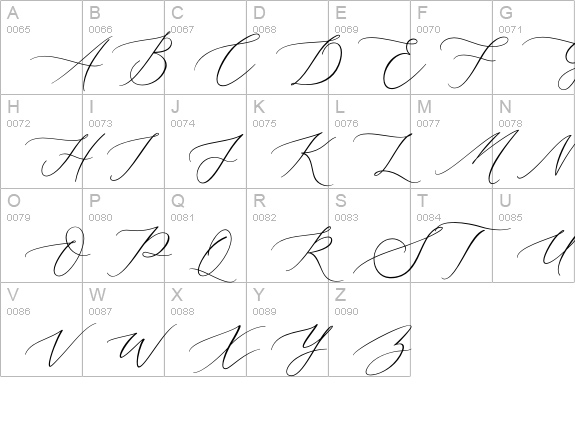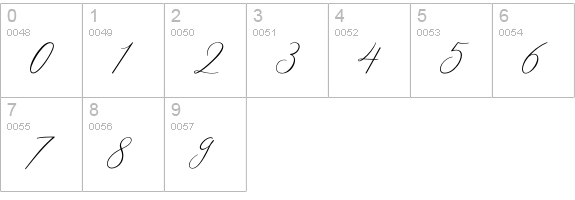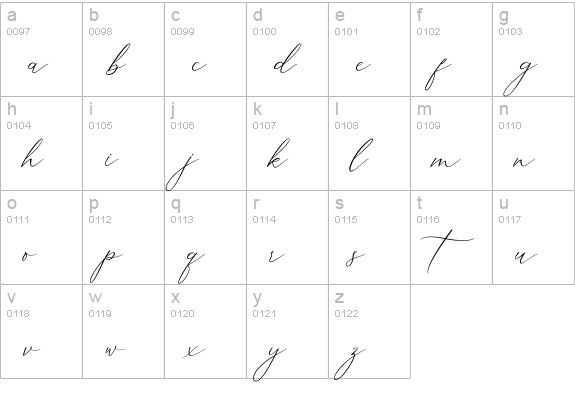
Aerotis font is a modern and elegant typeface that exudes sophistication and style. With its clean lines and sleek design, Aerotis is perfect for a wide range of design projects, from branding to editorial layouts. This versatile font is sure to make your text stand out and leave a lasting impression.